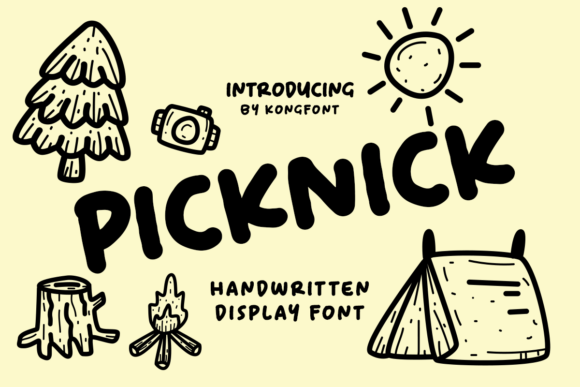
Introducing Picknick Font: A Playful and Casual Typeface for Creative Designs
Are you looking for a font that can add a touch of warmth and creativity to your designs? Look no further than the Picknick Handwritten Font. This charming typeface is perfect for a variety of design projects, including invitations, quotes, branding, social media posts, and crafts. In this article, we’ll explore the features and benefits of the Picknick Font and how it can elevate your designs.
What is Picknick Font?
Picknick Font is a playful and casual handwritten typeface that captures the charm of handwritten letters. Its lighthearted and friendly style makes it perfect for designs that require a personal touch. The font is designed to bring warmth and creativity to any design, making it ideal for a wide range of projects.
Key Features of Picknick Font
- Playful and Casual Style: Picknick Font has a lighthearted and friendly style that adds a touch of warmth to any design.
Use Cases for Picknick Font
Picknick Font is a versatile typeface that can be used for a wide range of design projects. Here are some use cases where the font excels:
- Invitations: The font’s playful and casual style makes it perfect for invitations, such as birthday parties, baby showers, and weddings.
- Quotes: The font’s friendly style makes it ideal for quotes, such as inspirational quotes, love quotes, and motivational quotes.
- Branding: The font’s unique style makes it perfect for branding projects, such as logos, business cards, and letterheads.
- Social Media Posts: The font’s playful style makes it ideal for social media posts, such as Facebook posts, Instagram captions, and Twitter tweets.
- Crafts: The font’s whimsical style makes it perfect for craft projects, such as scrapbooking, card making, and DIY projects.
Benefits of Using Picknick Font
Using Picknick Font in your designs offers several benefits, including:
- Unique Style: The font’s playful and casual style sets it apart from other fonts, making your designs stand out.
- Easy to Read: The font’s clear and legible style makes it easy to read, even at small sizes.
- Versatile: The font’s versatility makes it perfect for a wide range of design projects.
Tips and Tricks
Here are some tips and tricks for getting the most out of Picknick Font:
- Experiment with Different Sizes: Experiment with different font sizes to find the perfect size for your design.
- Use the Font’s Glyphs and Swashes: Use the font’s glyphs and swashes to add visual interest to your design.
- Pair with Other Fonts: Pair Picknick Font with other fonts to create a unique and interesting design.
Picknick Handwritten Font is a playful and casual typeface that captures the charm of handwritten letters. Its lighthearted and friendly style makes it perfect for a wide range of design projects, including invitations, quotes, branding, social media posts, and crafts. With its multilingual support, PUA encoding, and availability in OTF and TTF formats, Picknick Font is a versatile and easy-to-use font that can elevate your designs.
- What is Picknick Font?: Picknick Font is a playful and casual handwritten typeface that captures the charm of handwritten letters.